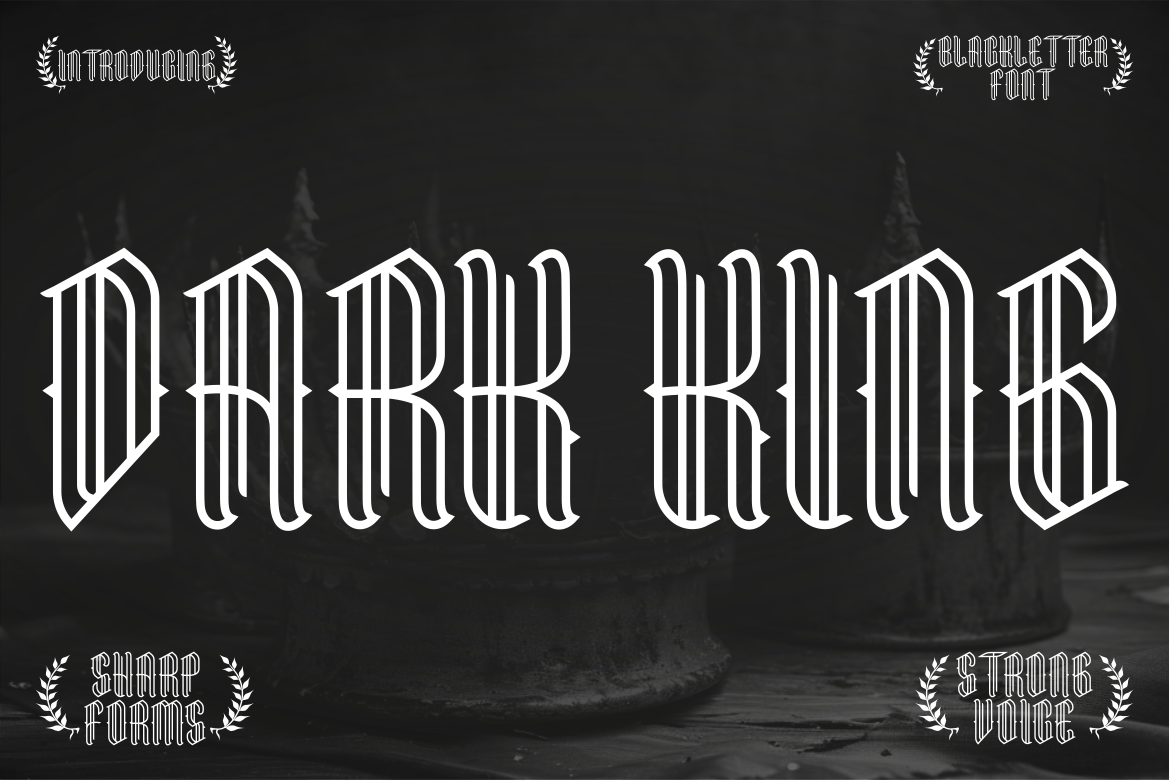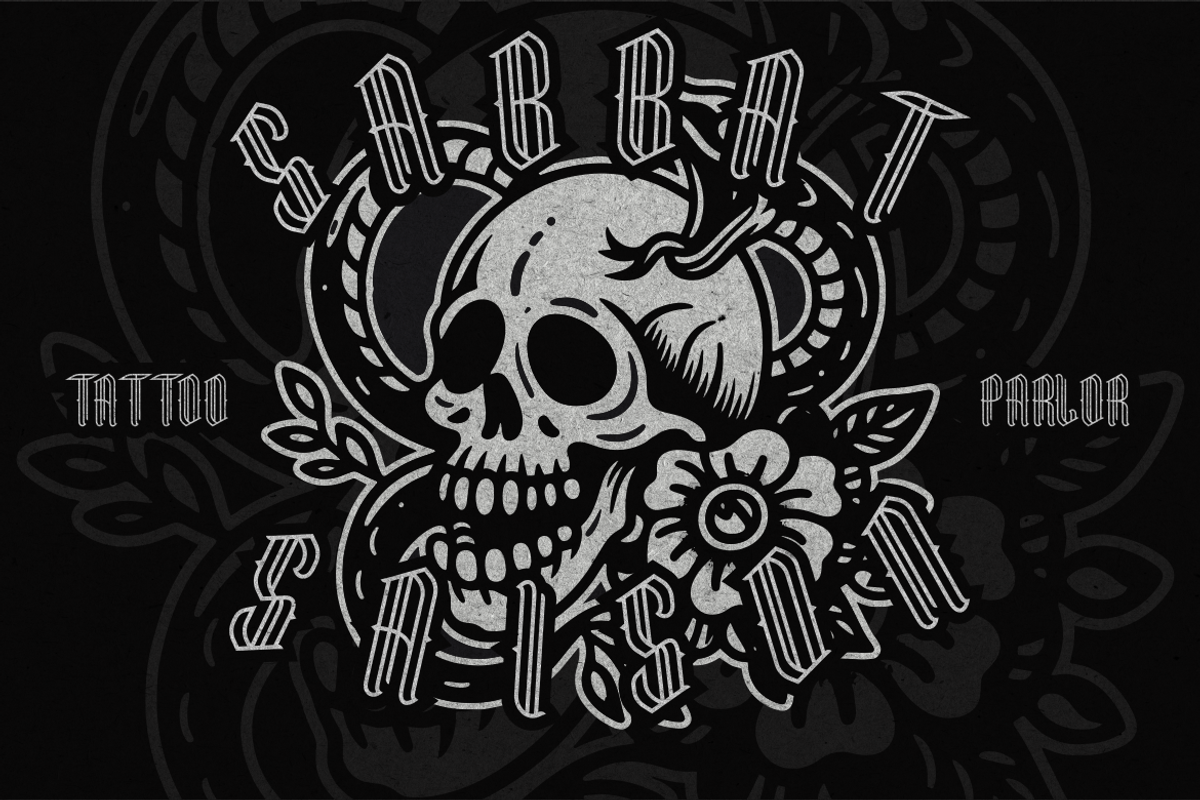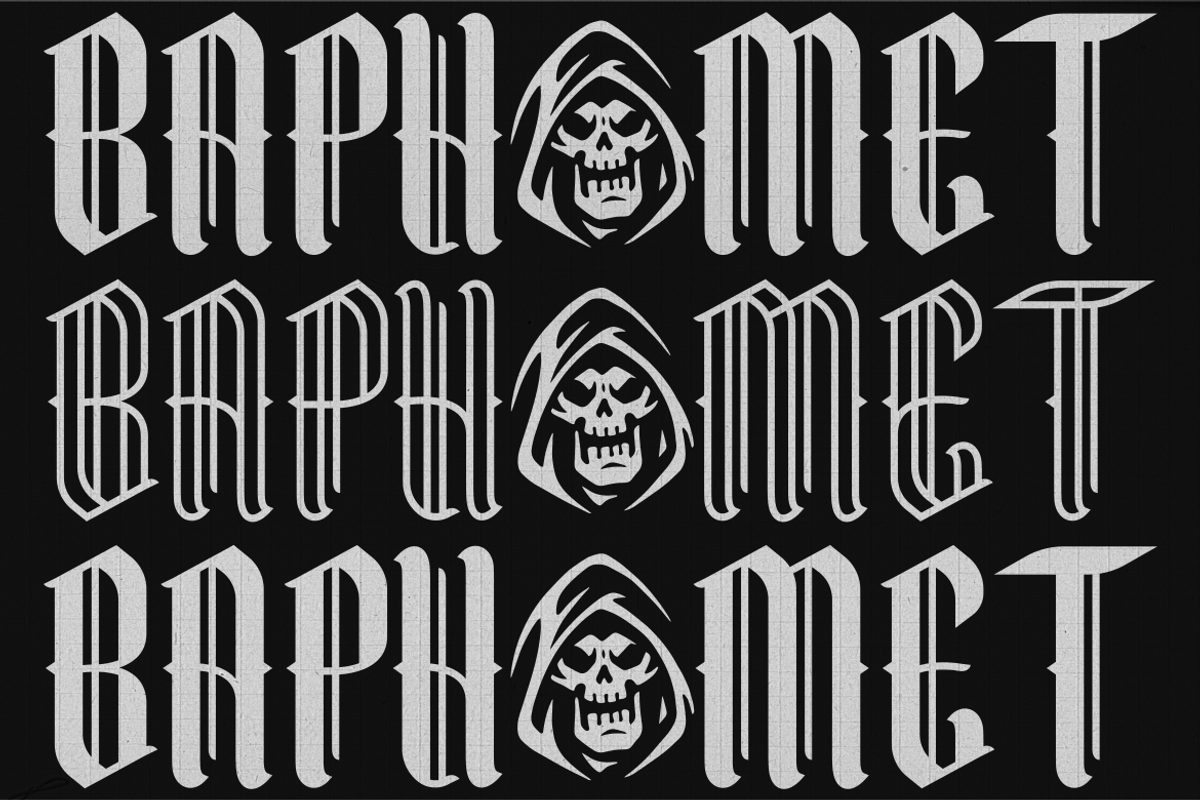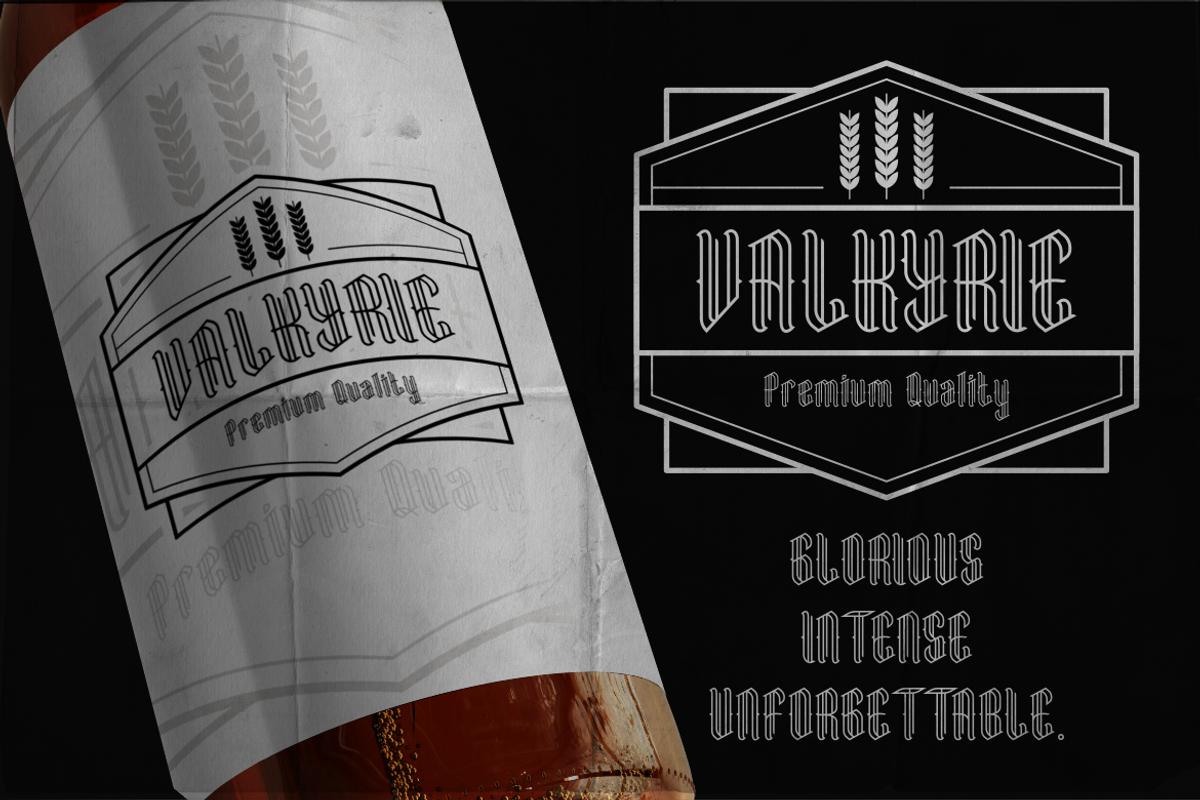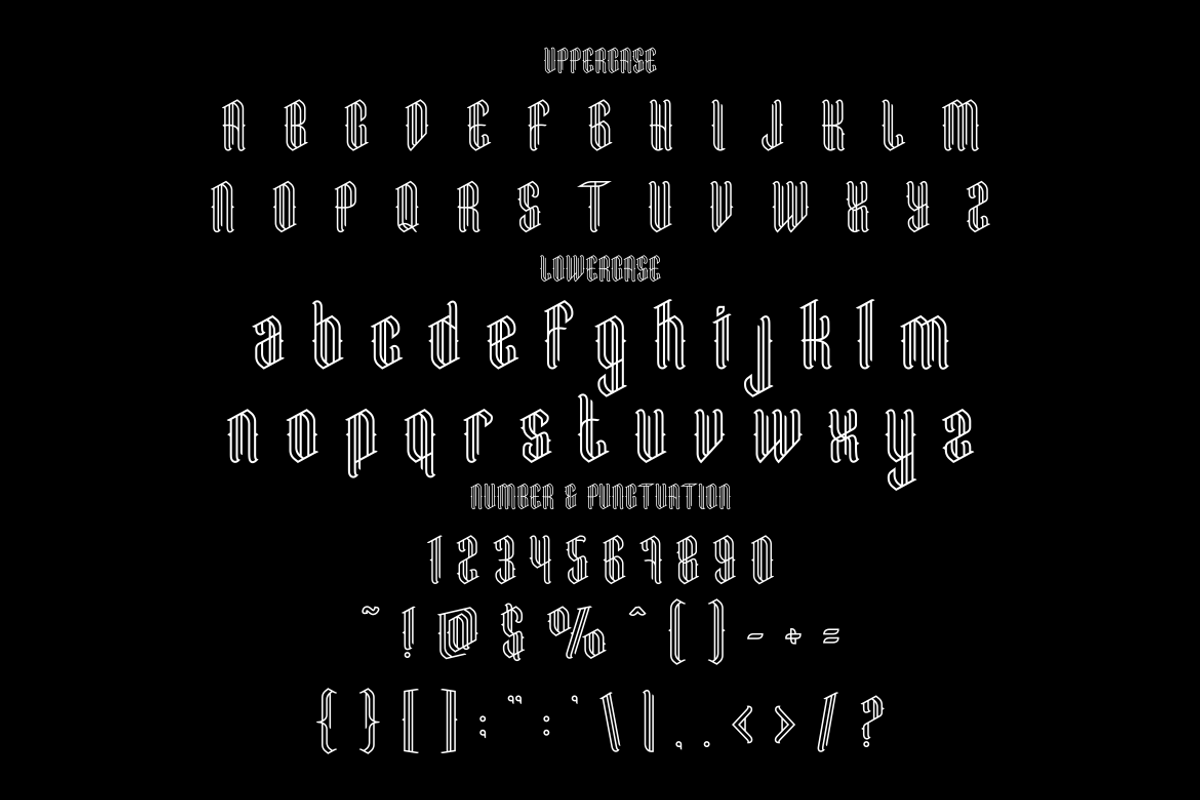
Dark King Blackletter Font
Dark King is a commanding blackletter font with a sharp, elongated structure and bold vertical emphasis. Its tall letterforms feature intricate line details that combine traditional gothic elegance with a modern, minimal twist. The clean yet striking strokes give every character a sense of authority, making it perfect for designs that demand attention. Both uppercase and lowercase letters maintain precise readability, while the slender spacing creates a sleek, high-impact look.
This font is ideal for tattoo-inspired graphics, luxury branding, poster titles, beverage packaging, or dramatic event promotions. It pairs perfectly with dark themes, metal band logos, or classic gothic designs while still feeling fresh for contemporary use. Dark King also includes numbers, punctuation, and symbols to support a wide range of design needs. Whether you’re working on a high-end label, an album cover, or a statement logo, this font delivers power, precision, and unforgettable style.